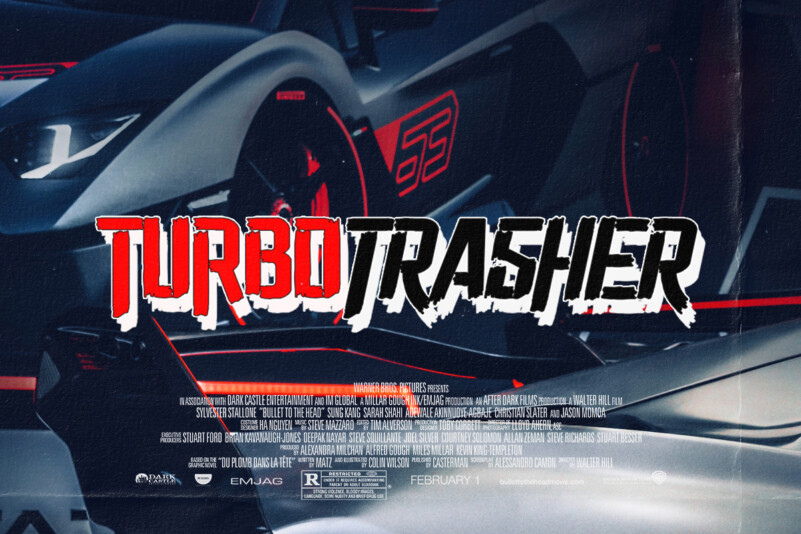
Stoneshield Font
Stoneshield Font is bold and fun handwritten font. Whether you use it for cartoon-related designs, children’s games, or just any creation that requires a lovely touch, this font will be an amazing choice.